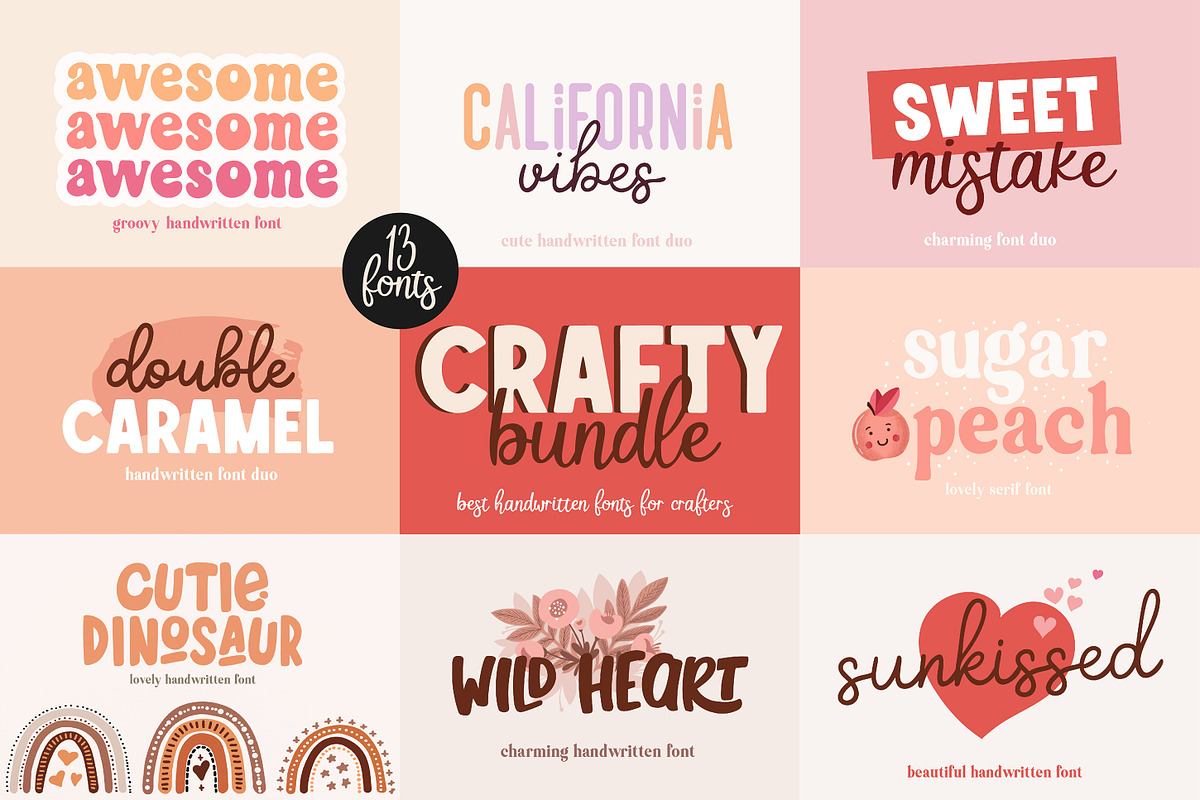
Crafty Bundle - 13 Handwritten Fonts Free Download
Crafty Bundle - 13 Handwritten Fonts Free Download is a collection of versatile and charming handwritten typefaces designed to bring personality and authenticity to your designs. With 13 unique fonts, this bundle offers a wide range of styles, from playful scripts to elegant brush fonts, perfect for a variety of projects.
Whether you're creating logos, invitations, social media posts, or personal branding, Crafty Bundle provides the perfect combination of fun, creativity, and readability. The fonts are ideal for DIY projects, crafts, and any design that requires a hand-crafted, organic feel.